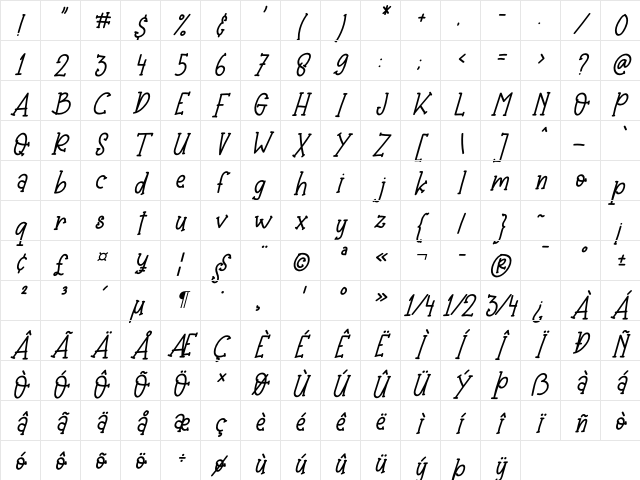
Baby Crab is a composed and adaptable typeface that performs quietly and consistently across a wide range of design contexts. The slanted form adds forward momentum and visual energy.
Pro Tip: Use Baby Crab for emphasis, pull quotes, and subheadings where its slanted energy can add rhythm to the layout.